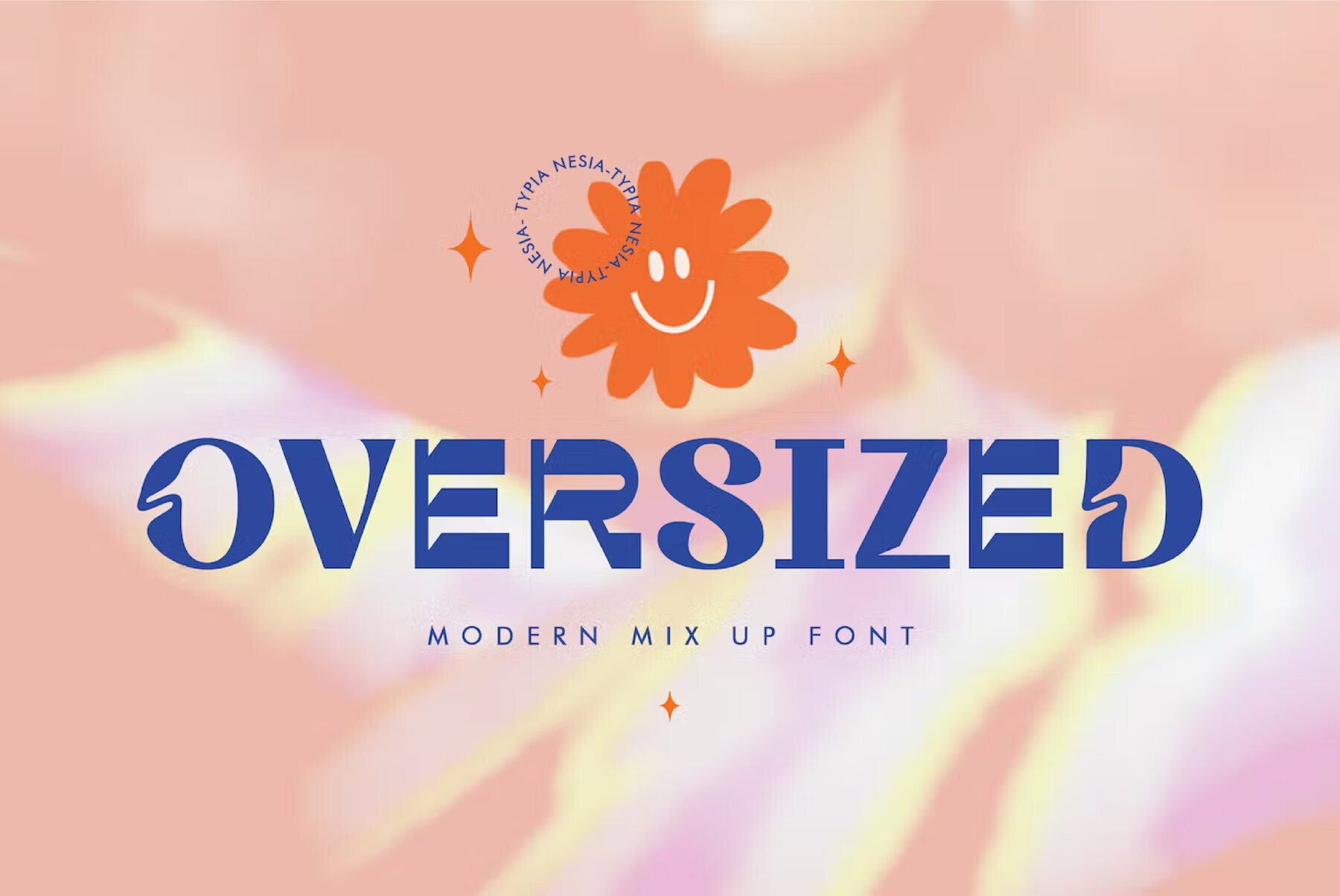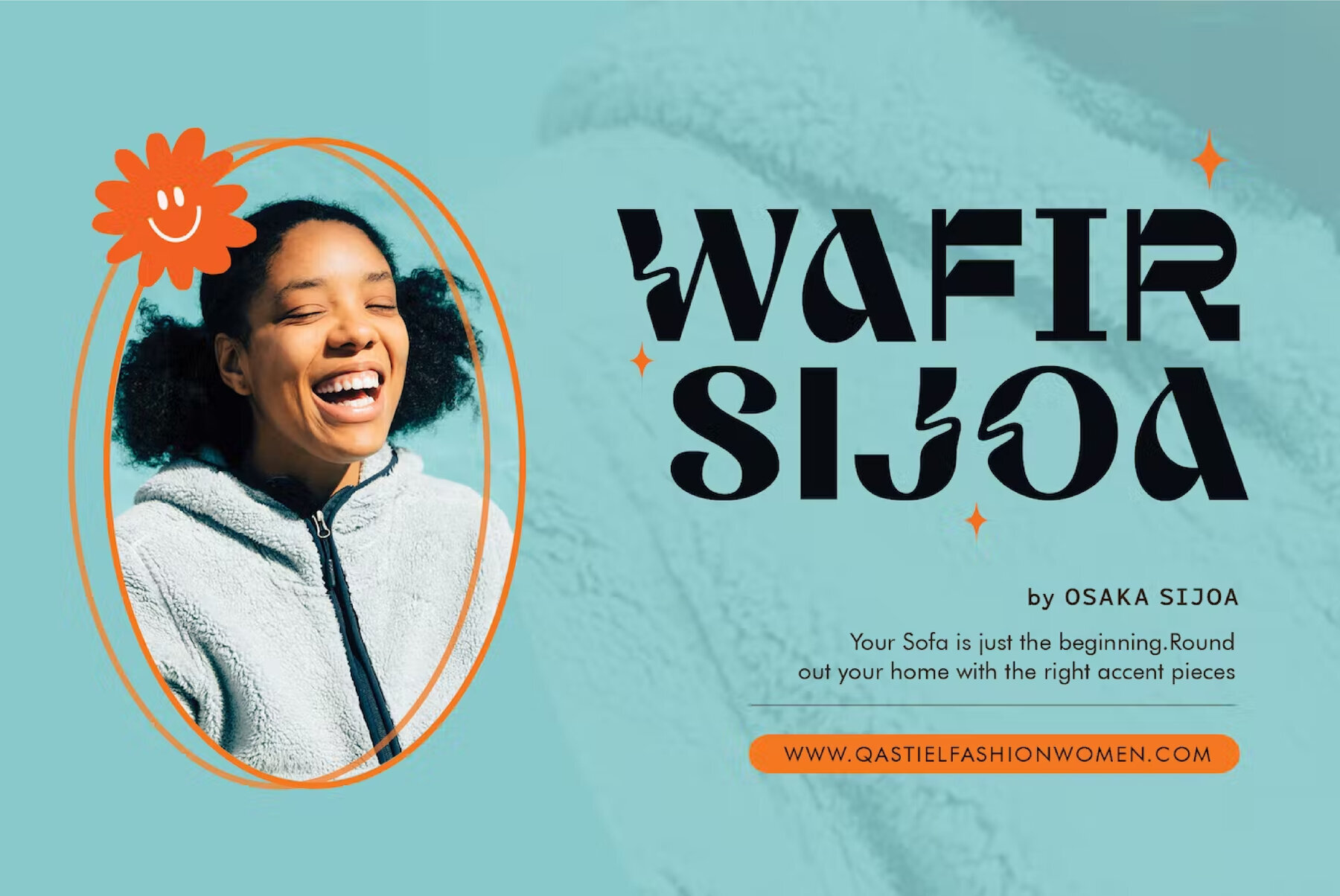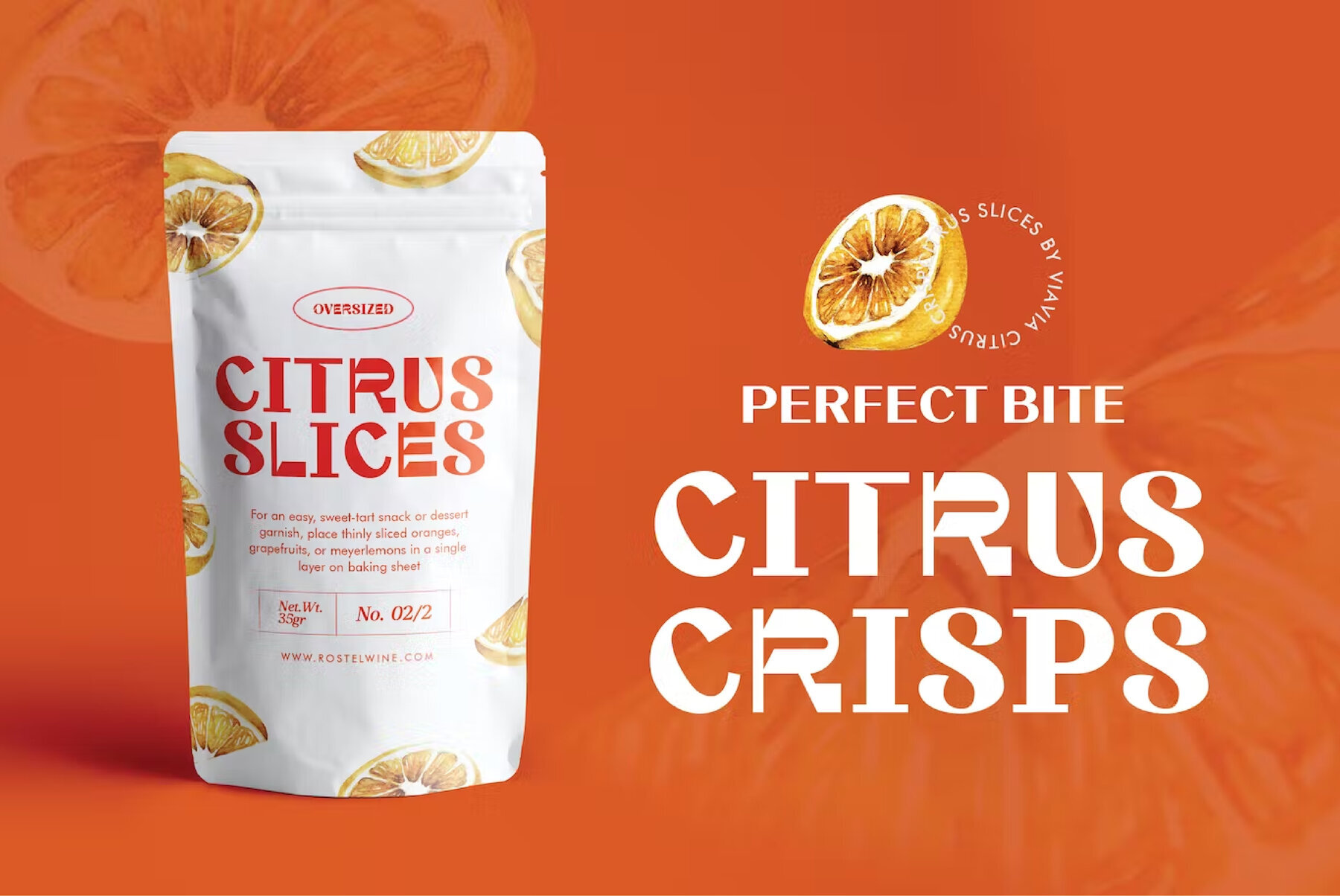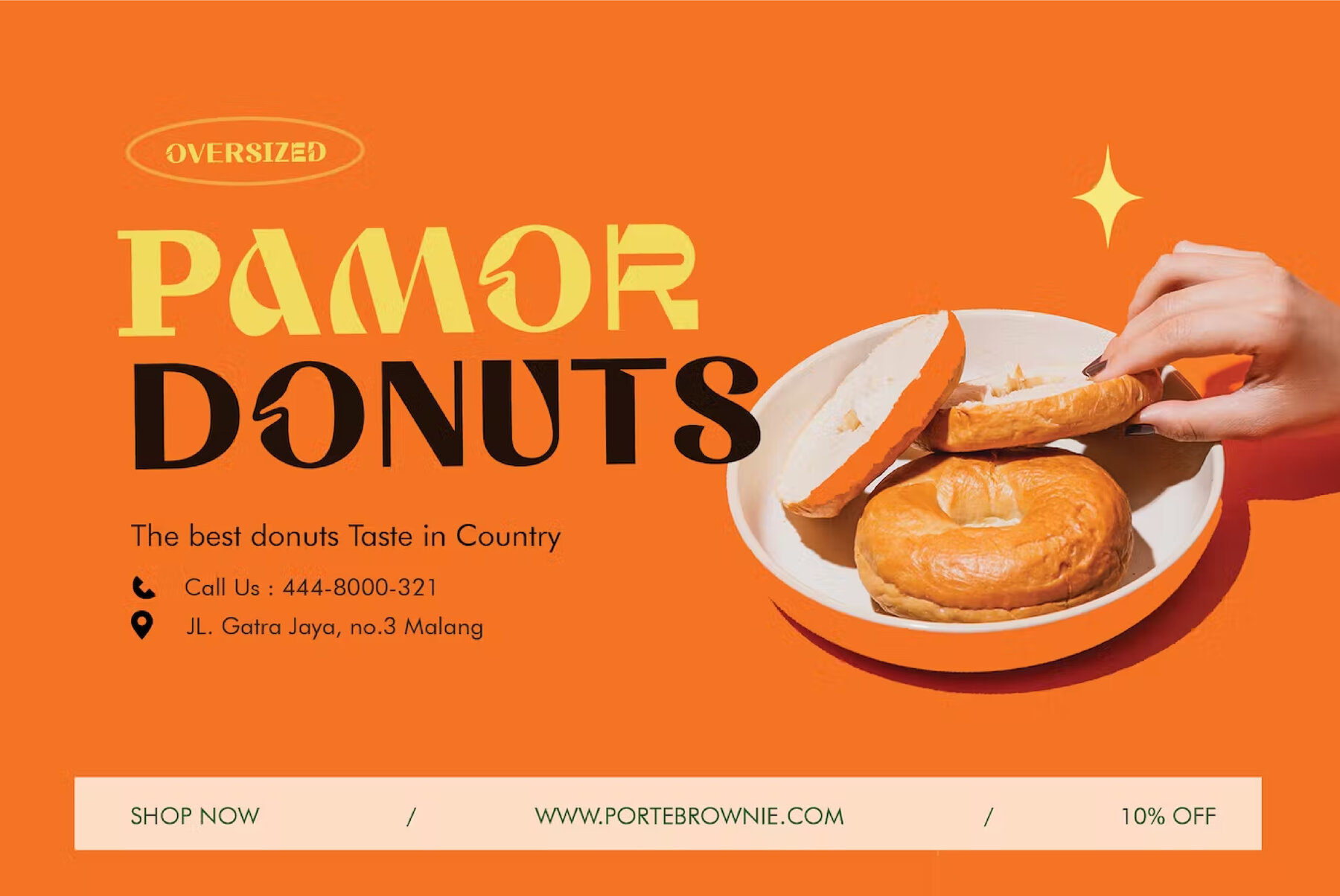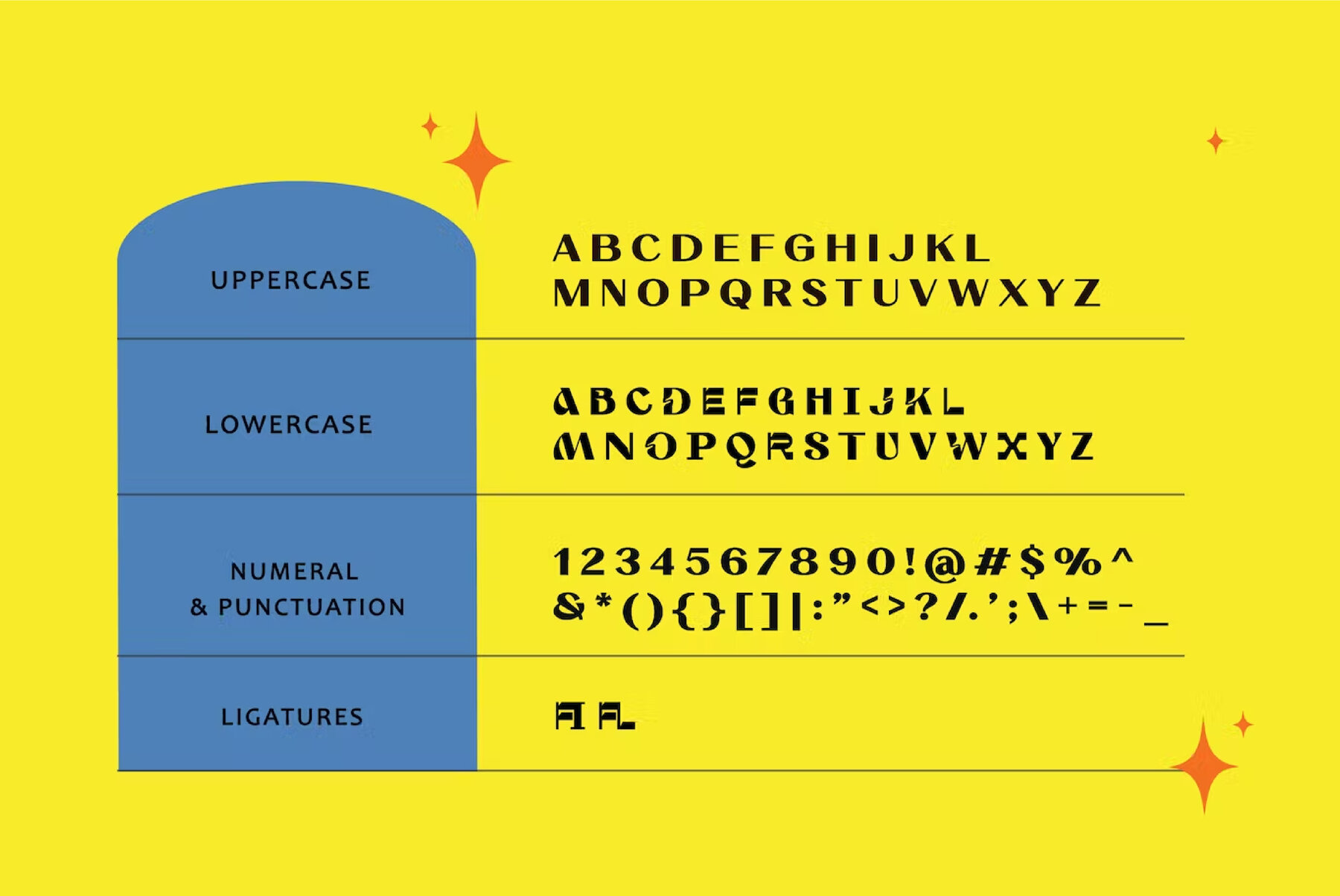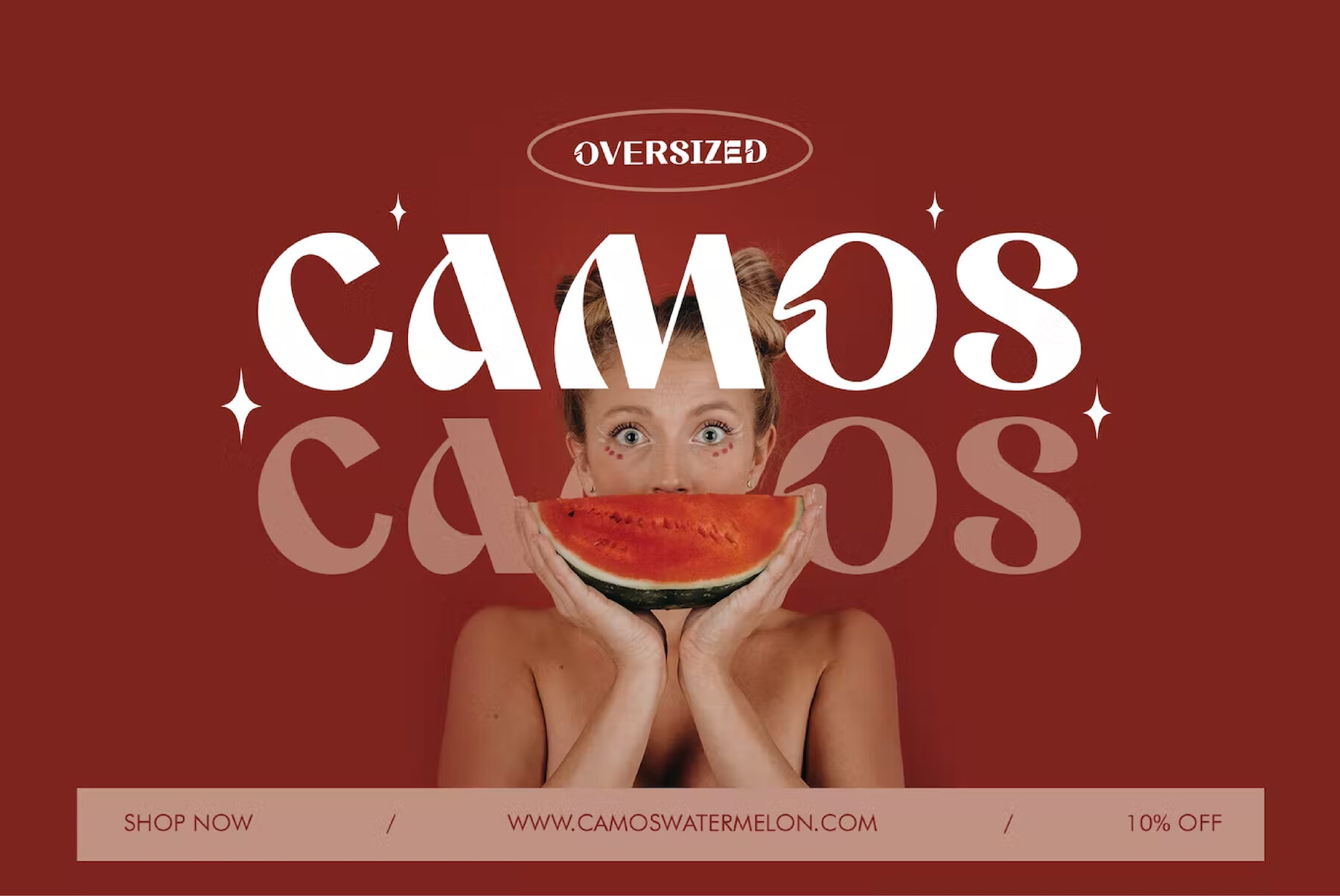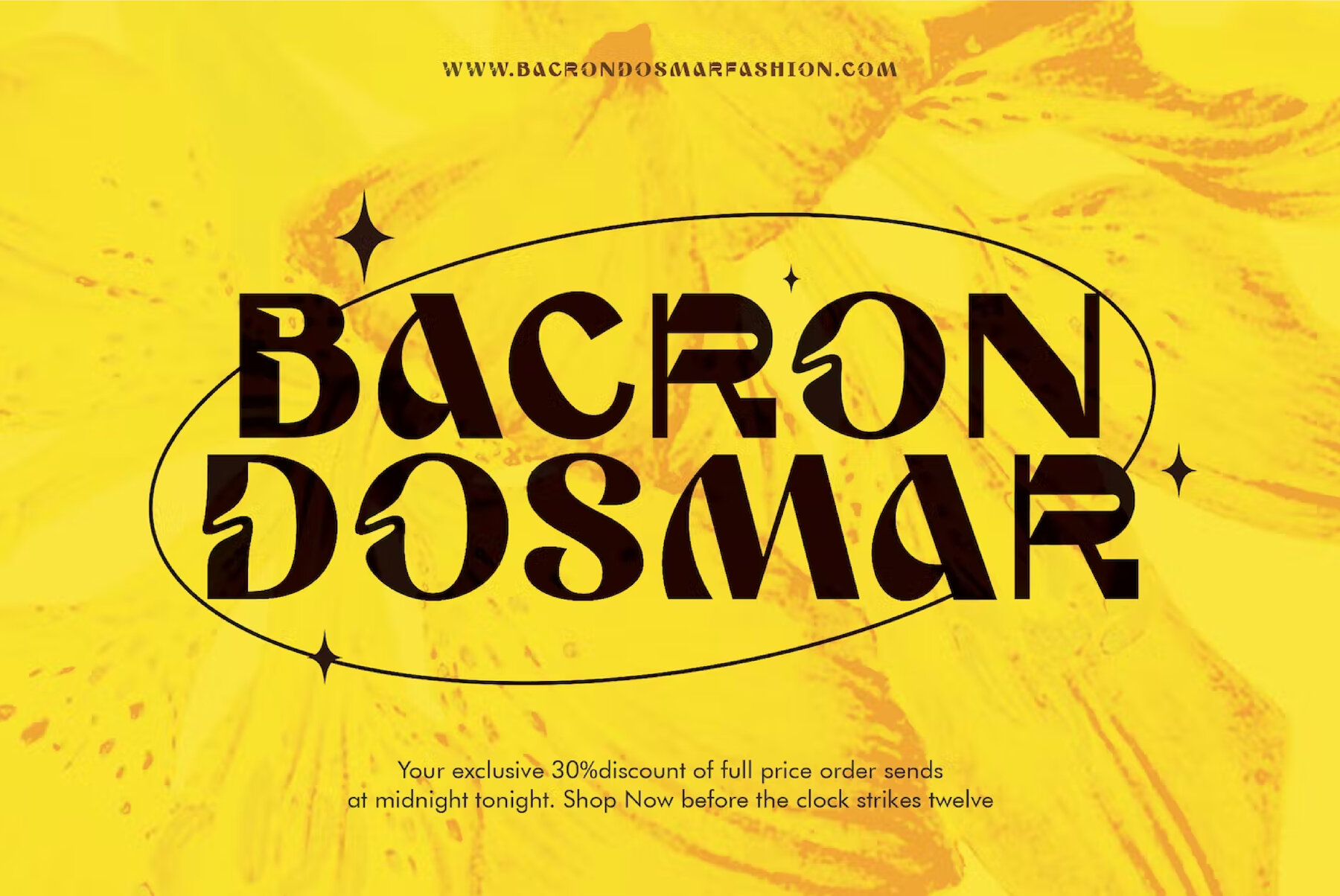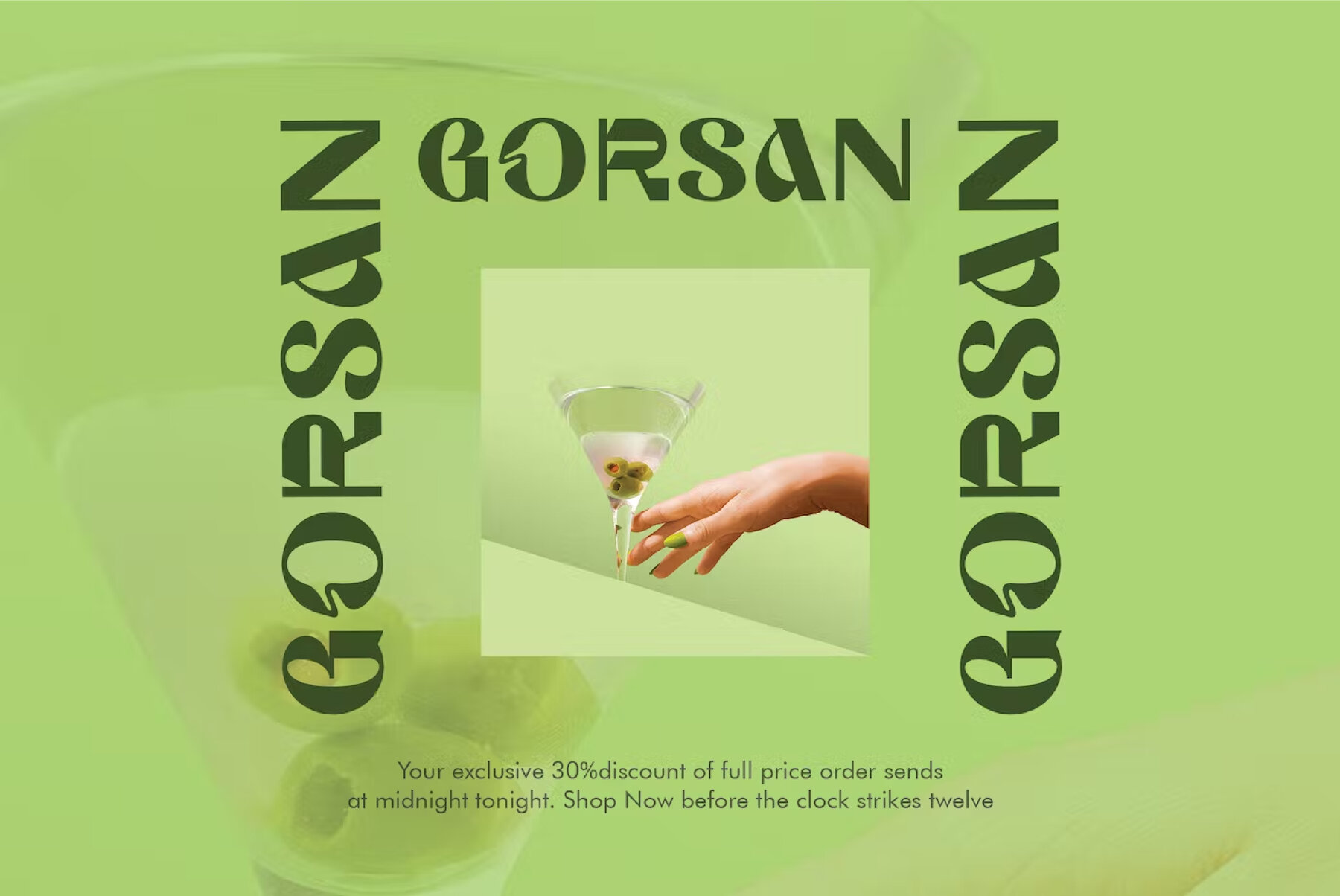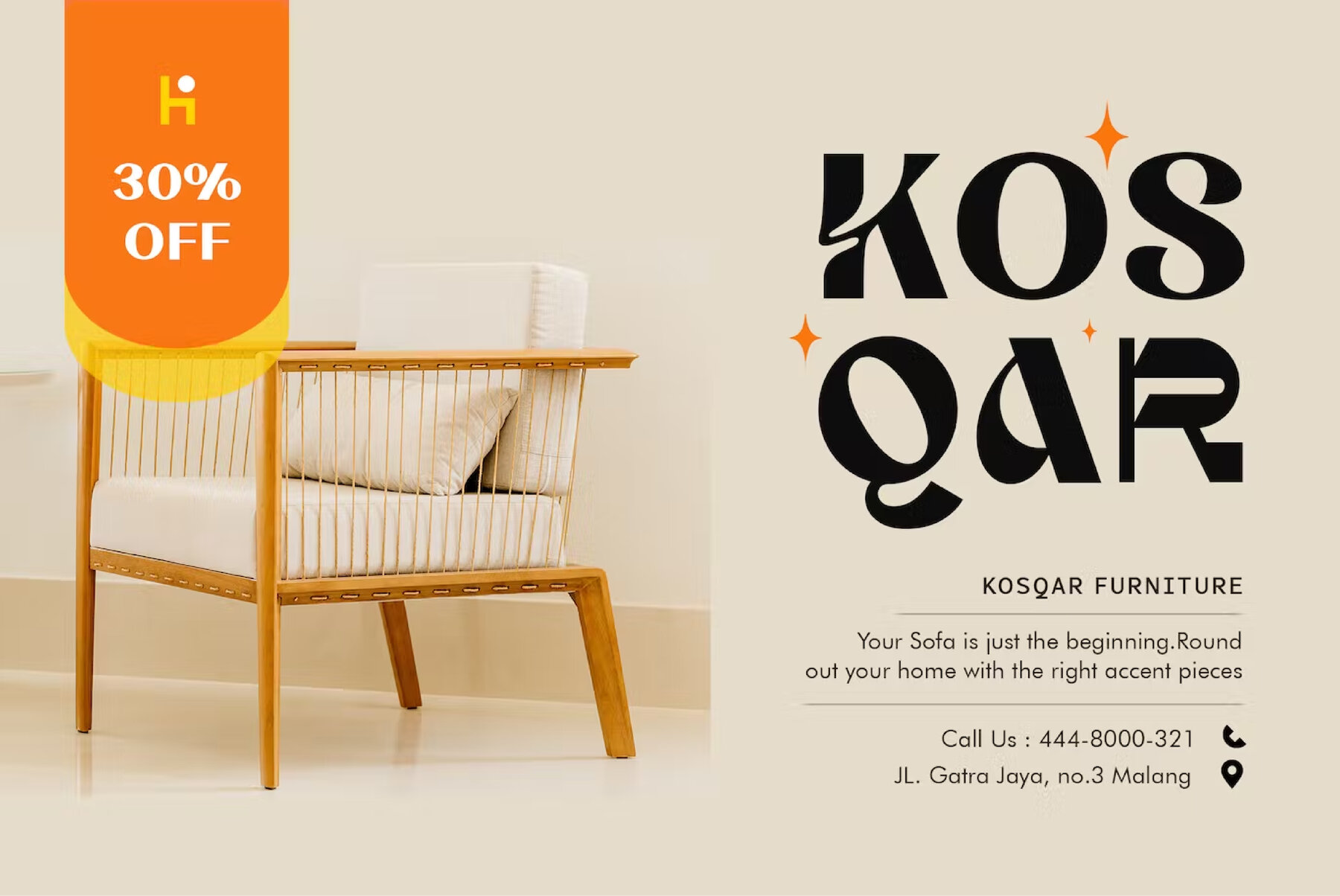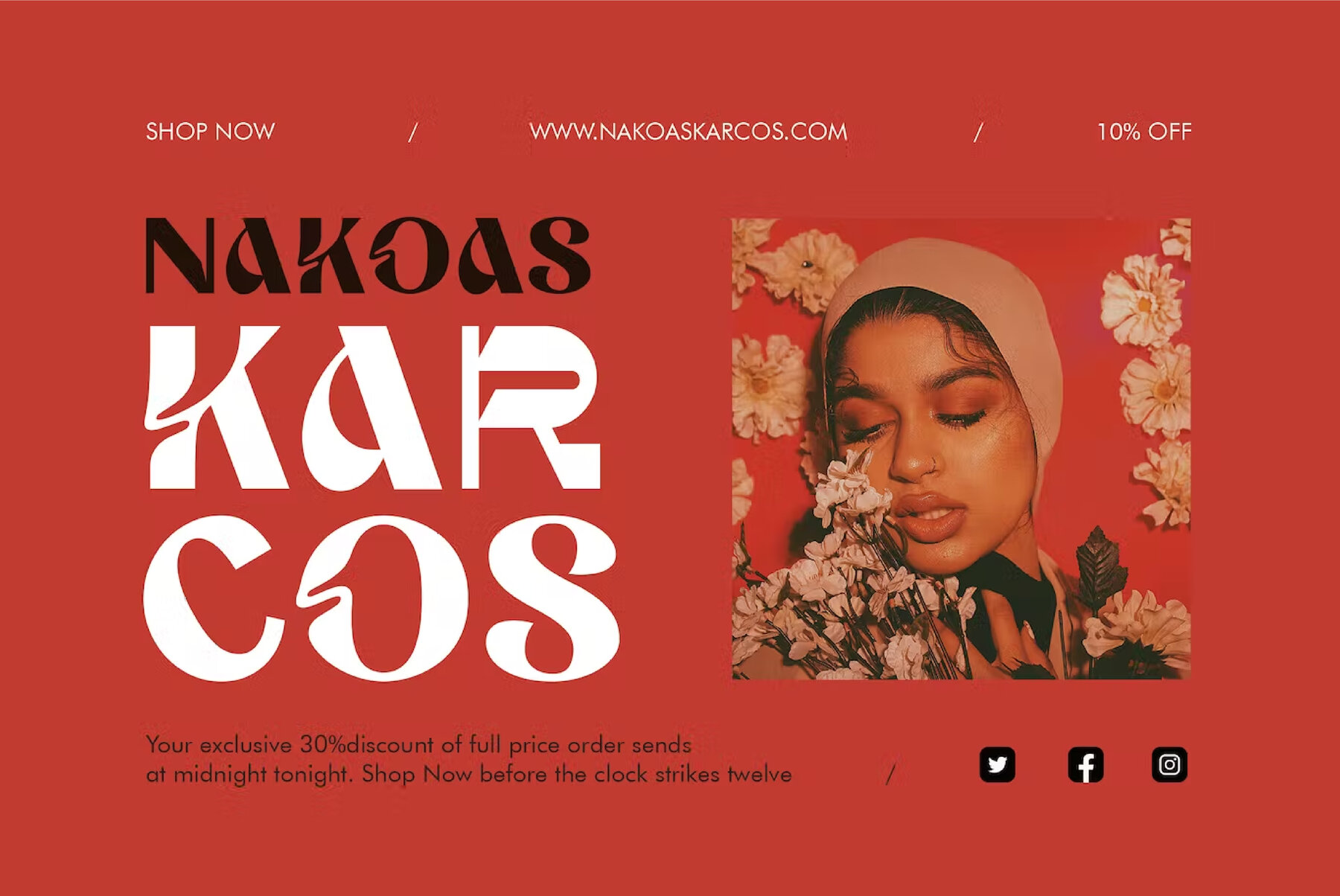
Oversized Font
Oversized Regular
Oversized by Typia Nesia Std brings a delightful twist to sans serif typography, making it an ideal choice for dynamic design projects. Its eye-catching form is perfect for logo branding, editorial layouts, sport and gaming visuals, and music covers. Whether crafting a website or designing modern advertisements, this font lends a touch of whimsy and sophistication.Oversized: Playful Sans Serif for Bold Branding